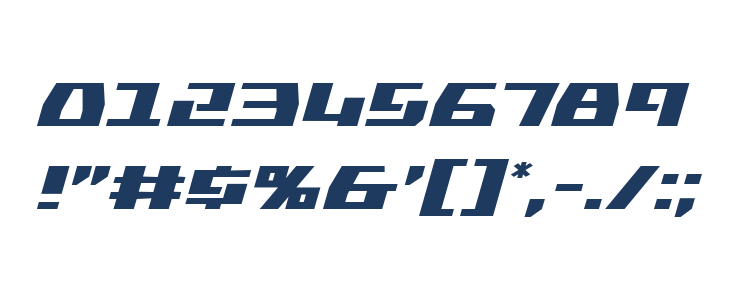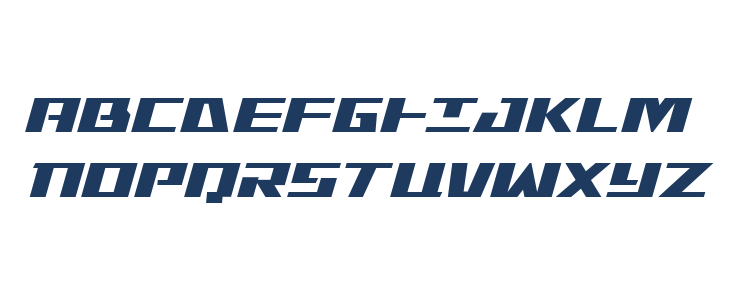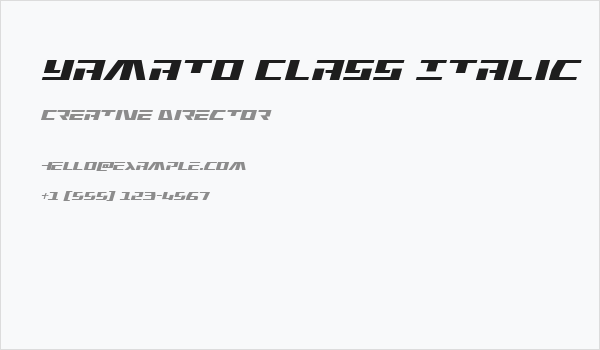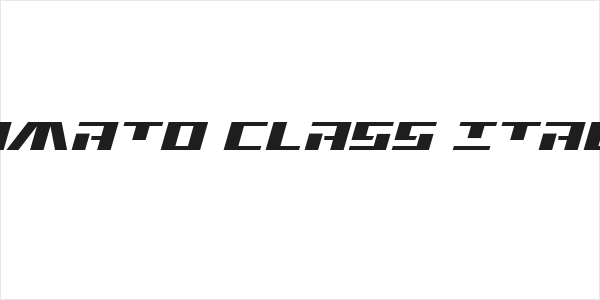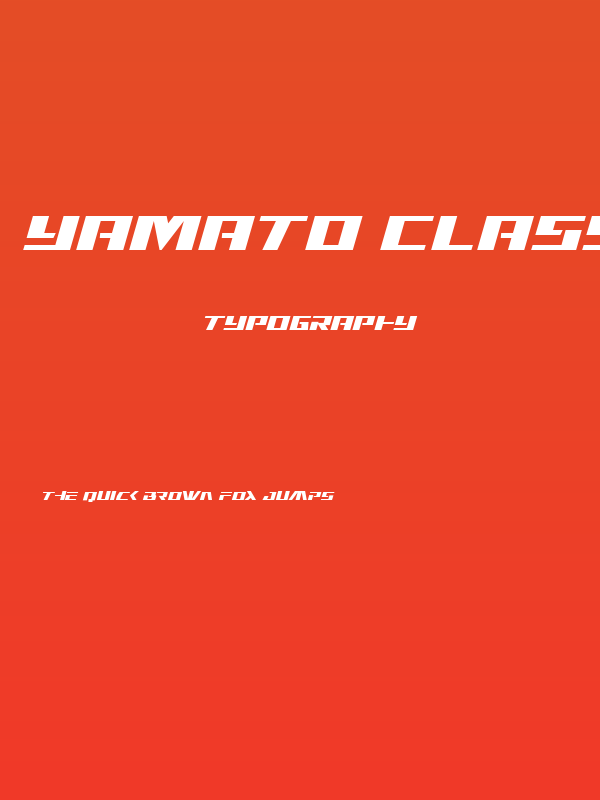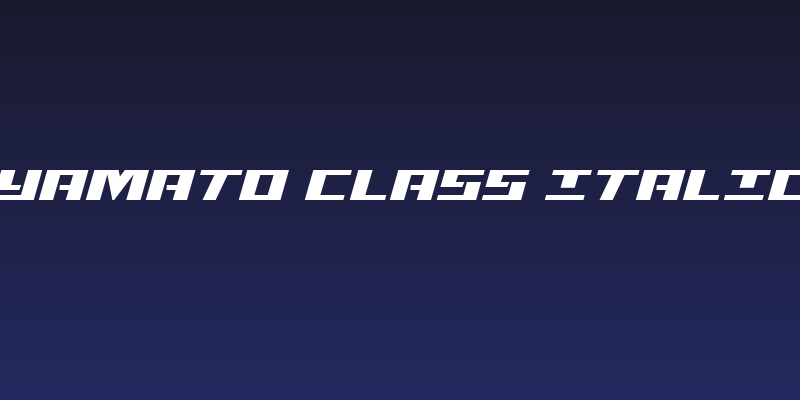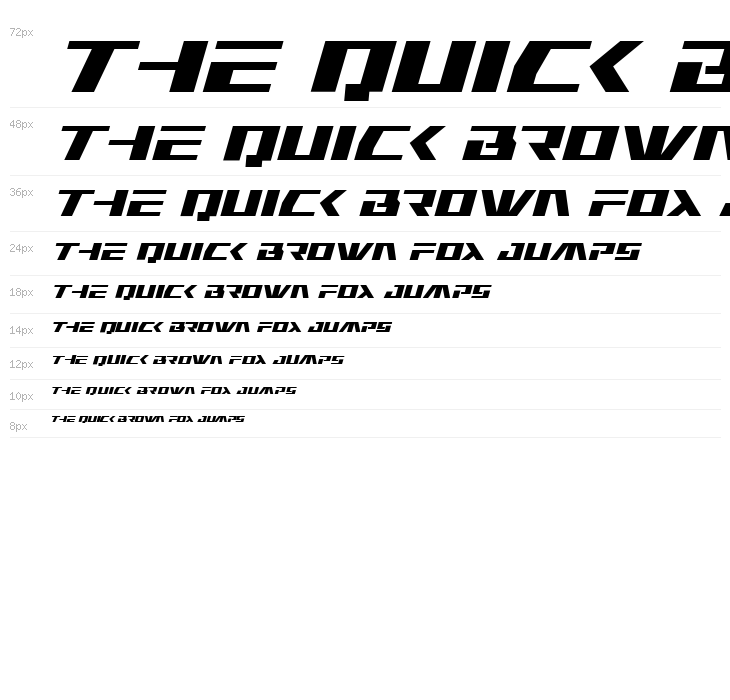
Yamato Class Italic Font
Yamato Class Italic Description
A bold, angular display typeface with a strong italic slant, featuring geometric letterforms and sharp edges. The characters are wide and have a futuristic, aggressive appearance, with consistent stroke thickness and minimal curves.
| Overall Style | Futuristic, Decorative |
| Proposed Projects | Video game titles, sci-fi posters, sports branding, technology logos, event flyers. |